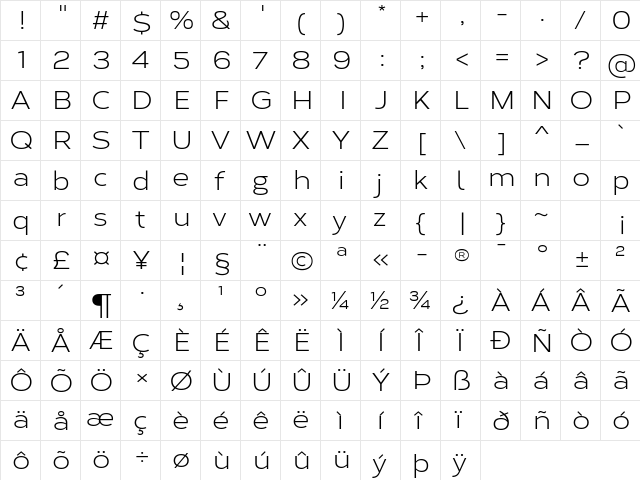
Corbert Regular Wide
| Foundry | The Northern Block Ltd. |
| Designer | Jonathan Hill |
Design Context for Corbert Typeface
Corbert takes a measured approach to typography — its balanced proportions and neutral character make it a reliable workhorse for both digital and print work.